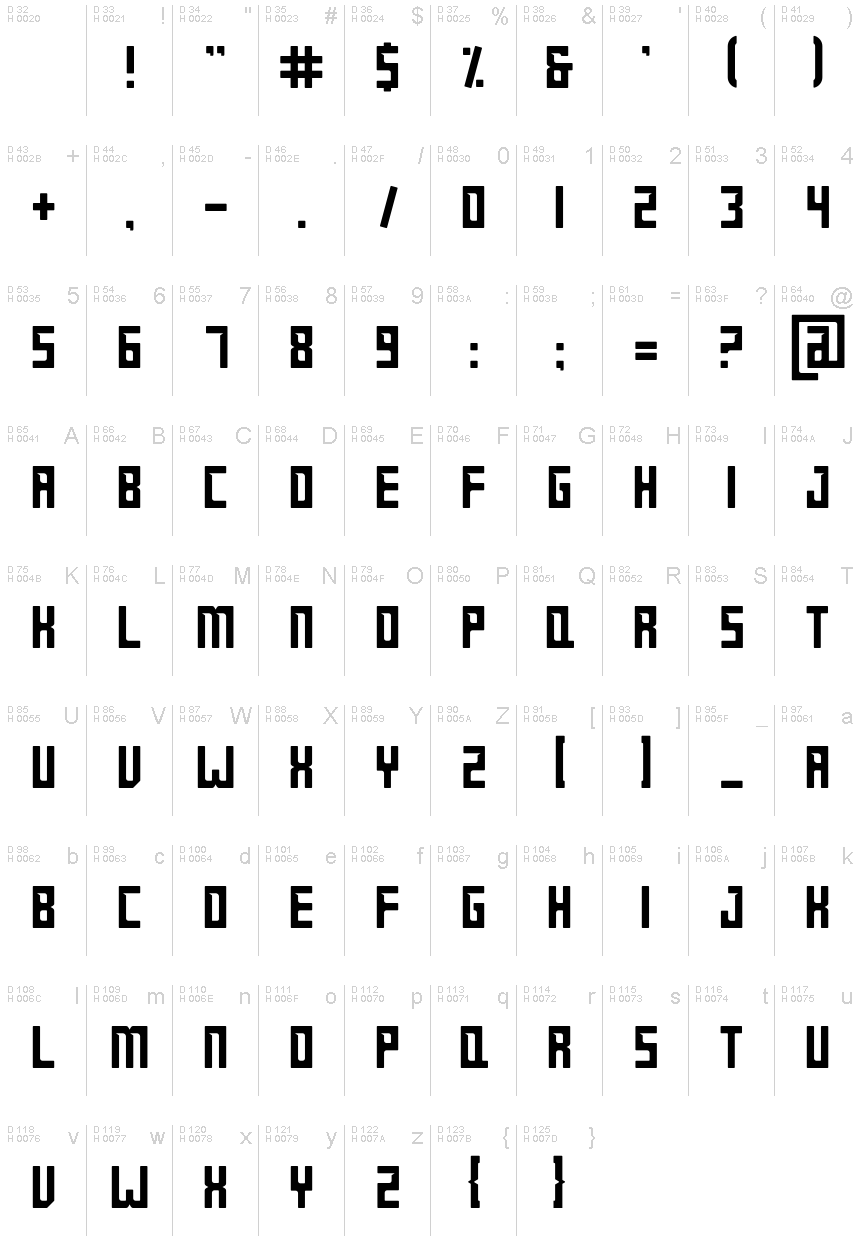
FEATURISTIC
Featuristic font is a blocky free techno display font by Gilang Ternadho, which features an entertaining style. This modern typeface rocks geometric, slab serif typefaces which serves to be used when you want to make a statement or attract attention towards the larger text. It offers a unique and futuristic style while keeping an artistic edge that allows it to be clear for all readers.
Use it with logos, branding designs in various industries from technology, transportation & car parts sellers, financial institutions to e-commerce websites and apps. You can also incorporate it into posters with large highlighted text such as headlines and movie titles.